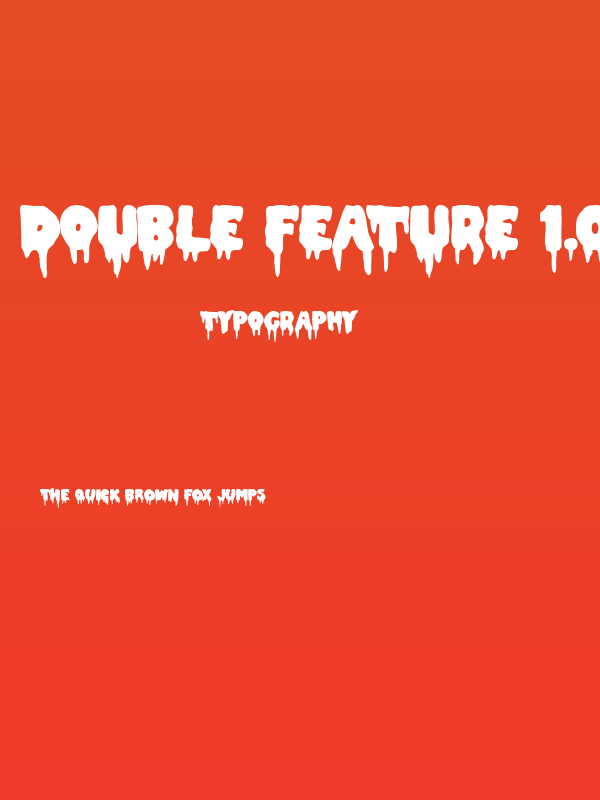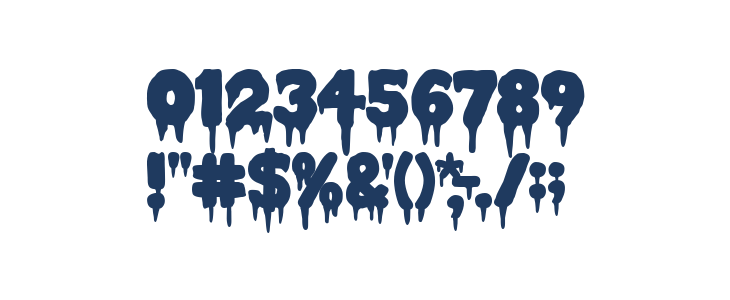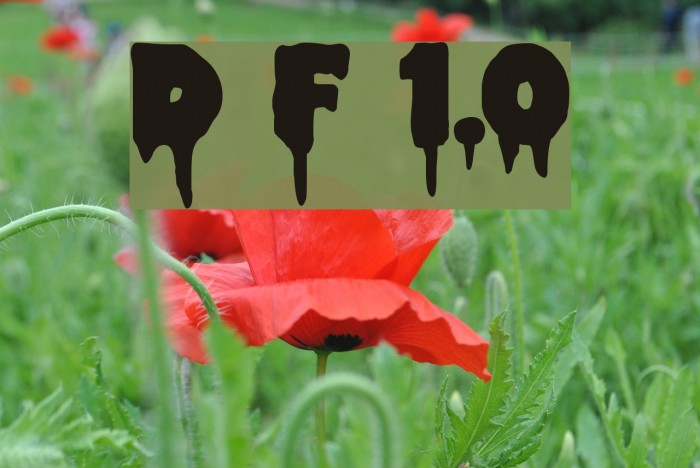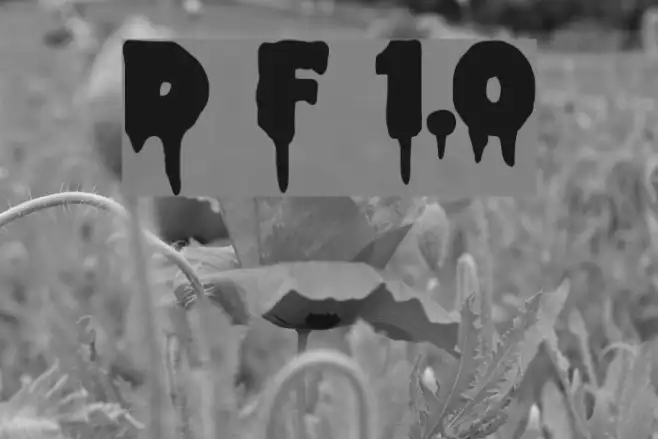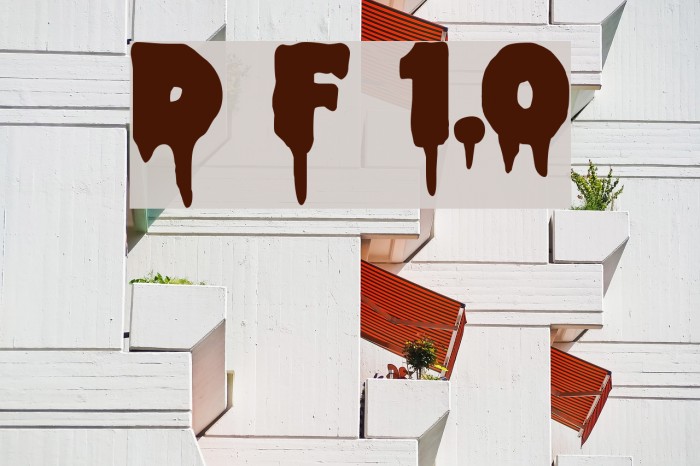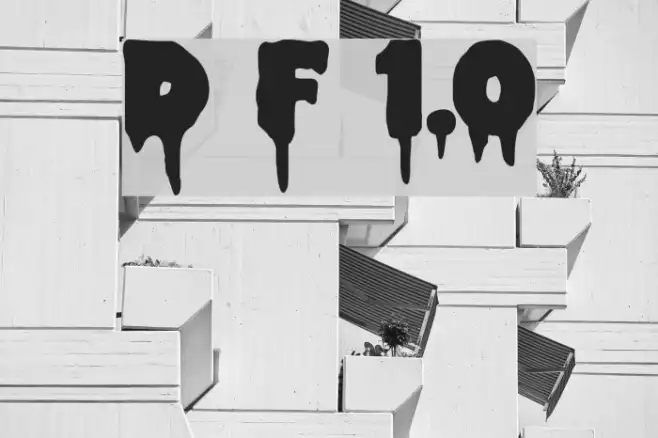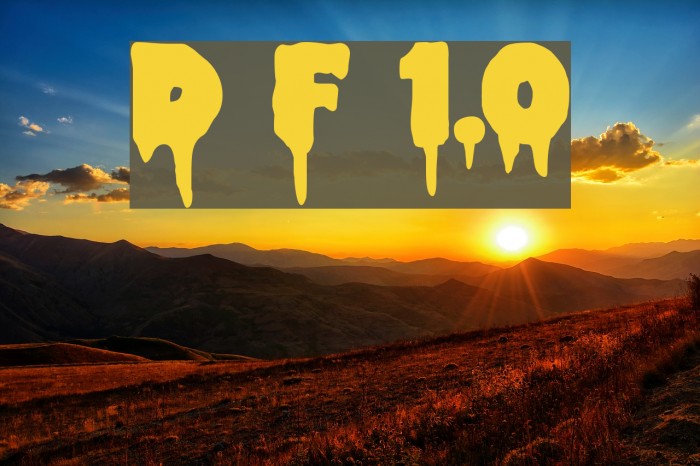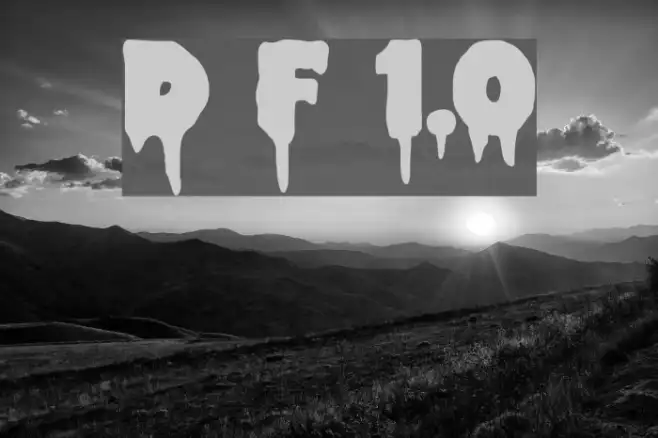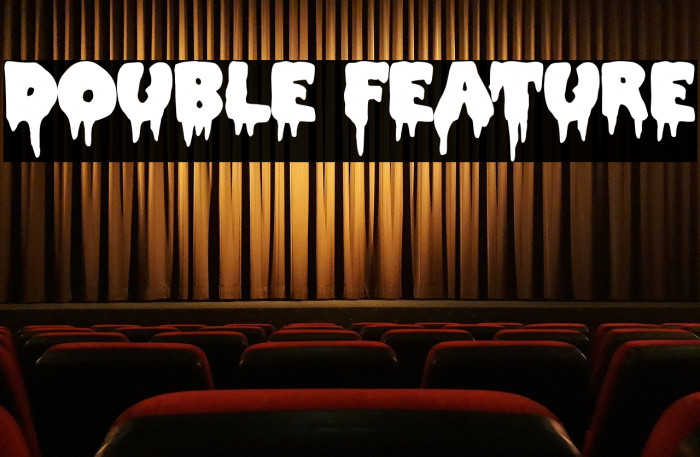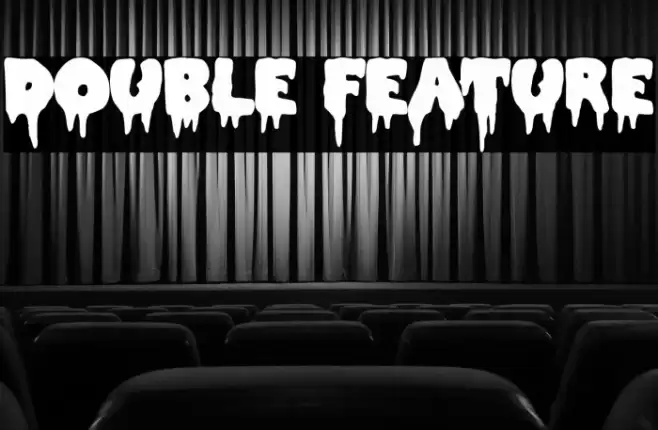
Double Feature 1.0 Font
| Projets proposés | Ideal for Halloween-themed projects, horror movie posters, haunted house flyers, and any design requiring a spooky or eerie aesthetic. |